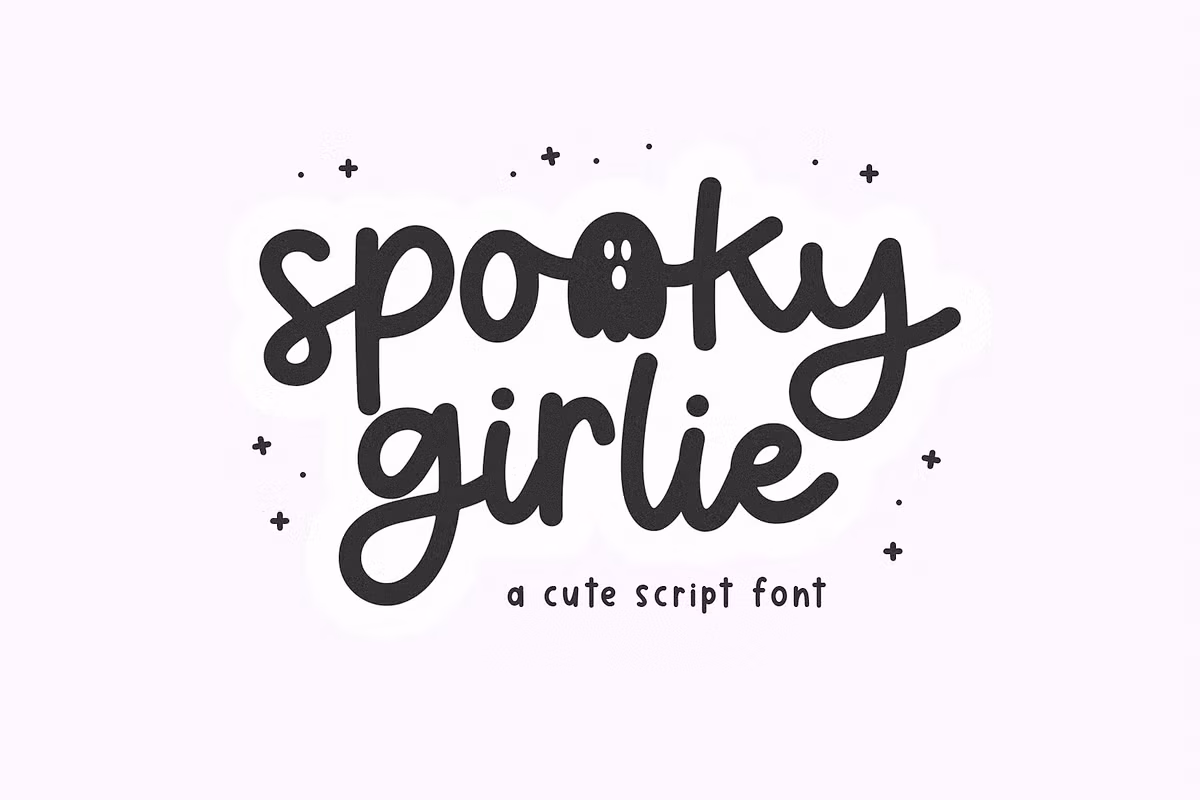
Spooky Girlie | Halloween Font Free Download
Spooky Girlie | Halloween Font Free Download is a playful and whimsical typeface perfect for adding a touch of fun to your Halloween-themed designs. With its cute yet spooky letterforms, this font is ideal for party invitations, seasonal crafts, trick-or-treat signage, social media graphics, and more. It brings the perfect balance of eerie and adorable, making it great for both kids' and family-friendly projects.
The hand-drawn style of Spooky Girlie gives your design a personal, festive feel that stands out. Whether you're creating printable decorations or digital content, Spooky Girlie | Halloween Font Free Download adds just the right amount of charm and creepiness to capture the Halloween spirit.